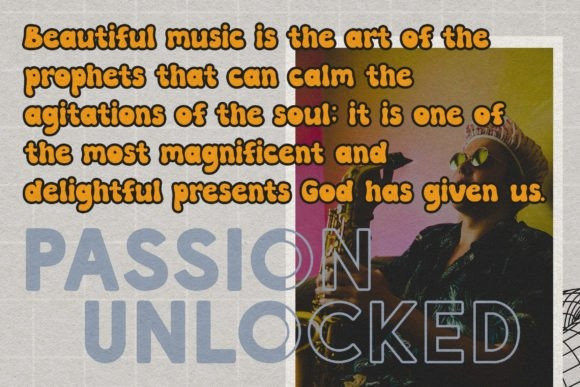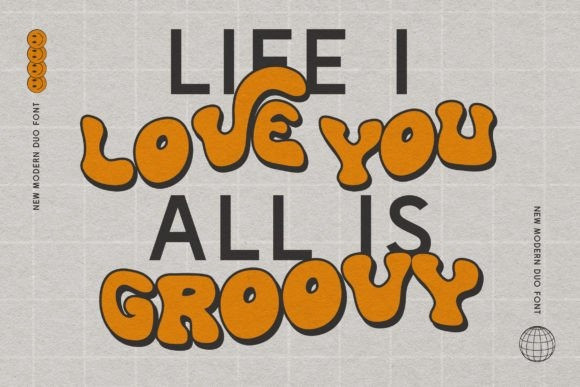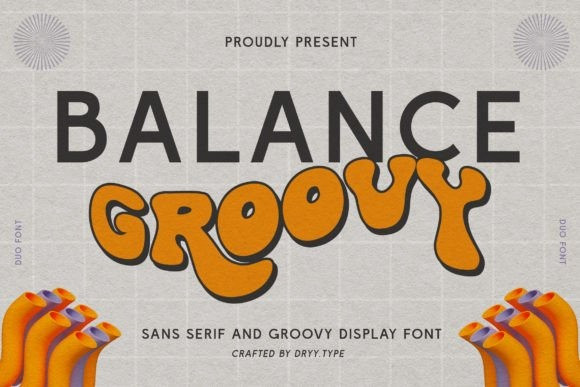
Balance Groovy Font
Balance Groovy Font is a quirky and distinctive display font that exudes a 1980s vibe. Its bold lettering and unique design create a sense of energy and fun, while its neon colors and futuristic style add a touch of nostalgia. Perfect for posters, album covers, and any project in need of a retro and vibrant touch.